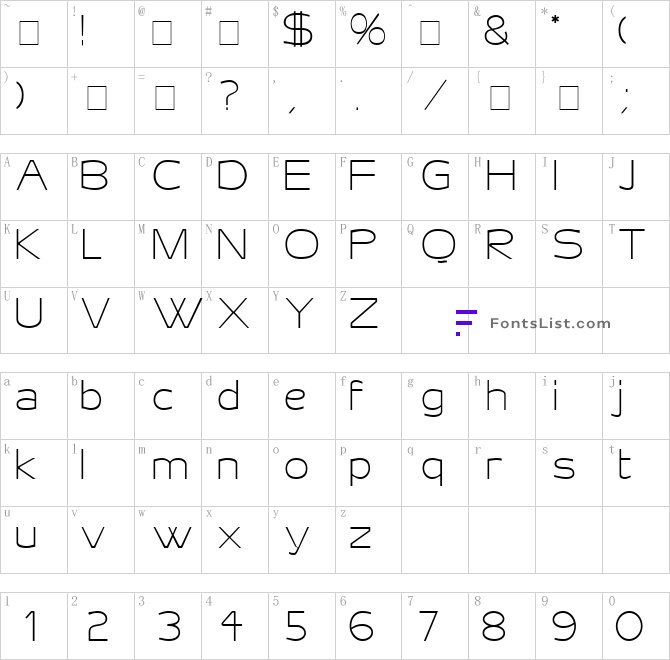
- Font Name:Aero Display SSi
Aero-Display-SSi.ttf is a very beautiful artistic font, Aero-Display-SSi.ttf is widely used in the design and printing of various books and pictures,Aero-Display-SSi.ttf has a strong visual impact,Aero-Display-SSi.ttf is a commonly used font in newspapers, magazines and books, and is used in posters, e-commerce Poster design, store design, logo design, font design and other fields.Aero-Display-SSi.